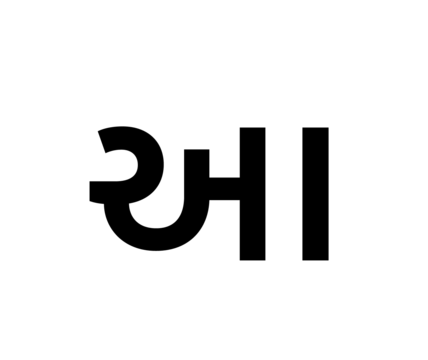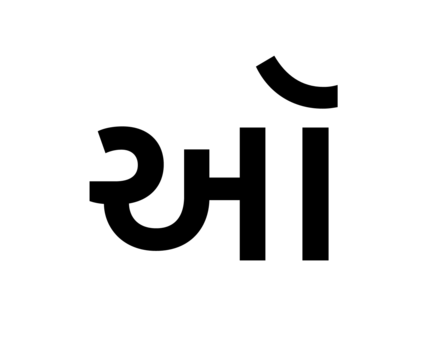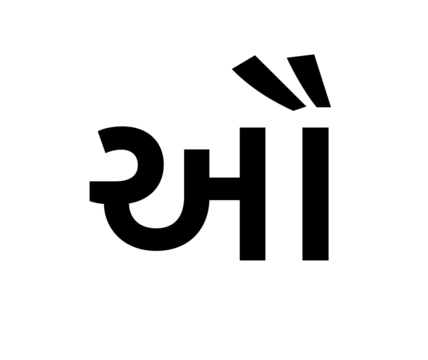
Kohinoor Gujarati is an all-around typeface for graphic designers, software engineers and branding specialists. With a clear appearance, it is easy to work with and inviting to read. Kohinoor Gujarati’s counter forms are open, and the shapes of its vowel marks are not fussy. The glyphs’ strokes are low-contrast. These features lend text set in the typeface an elegance that makes Kohinoor Gujarati suitable for both body and display sizes. The family includes five upright styles and each font contains 672 glyphs – a character set fully supporting all necessary Gujarati conjuncts and ligatures, as well as the glyphs needed for Hindu Gujarati, Parsi Gujarati and the Kutchi languages. Satya Rajpurohit developed Kohinoor Gujarati over five years, from 2009 to 2014. The design is part of Kohinoor Multiscript, ITF’s first super-family. Begun with the goal of supporting all of the major Indian languages while harmoniously translating a single design aesthetic across each writing system, Kohinoor Multiscript currently supports over 150 languages that are spoken natively by 1.5 billion people. The super-family is an ideal choice for text-heavy multilingual projects, including those from the areas of corporate design, electronic-embedding in apps, navigation or signage systems, print publications, product instruction manuals and television subtitling. Thanks to its low-contrast monolinear strokes and the open counters, Kohinoor Gujarati is a visual equal to humanist sans serif typefaces for the Latin script. Kohinoor Gujarati offers a similar colour to texts set in the Gumukhi, Latin, Tamil or Devanagari sub-families from Kohinoor Multiscript.
Family Name | Kohinoor Gujarati |
Designer(s) | Satya Rajpurohit |
Available Style | Light, Book, Demi, Medium, Bold |
Classification | Sans, Display |